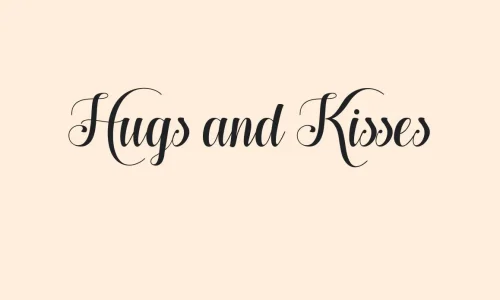
Oraqle Font is a Script typeface inspired by the calligraphy of the Arabic alphabet This stunning typeface was developed by 50Fox Foundry. It is characterized by its strong horizontal strokes and round shapes. The Oraqle Font family includes three weights: light, regular, and bold.
Due to its common and unique Ligatures, and alternative character designs, this typeface can be used for multiple purposes such as wedding invitations, business cards, and much more. Its famous swashes will give your text a natural and original look.